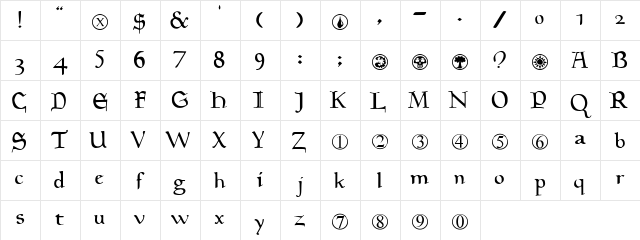
Magic:the Gathering Regular Free Font
Magic:the Gathering Regular
Design Context for Magic:the Gathering
Magic:the Gathering is a composed and adaptable typeface that performs quietly and consistently across a wide range of design contexts.
Pro Tip: Use Magic:the Gathering in both headline and body roles to test its range before committing to a single application.